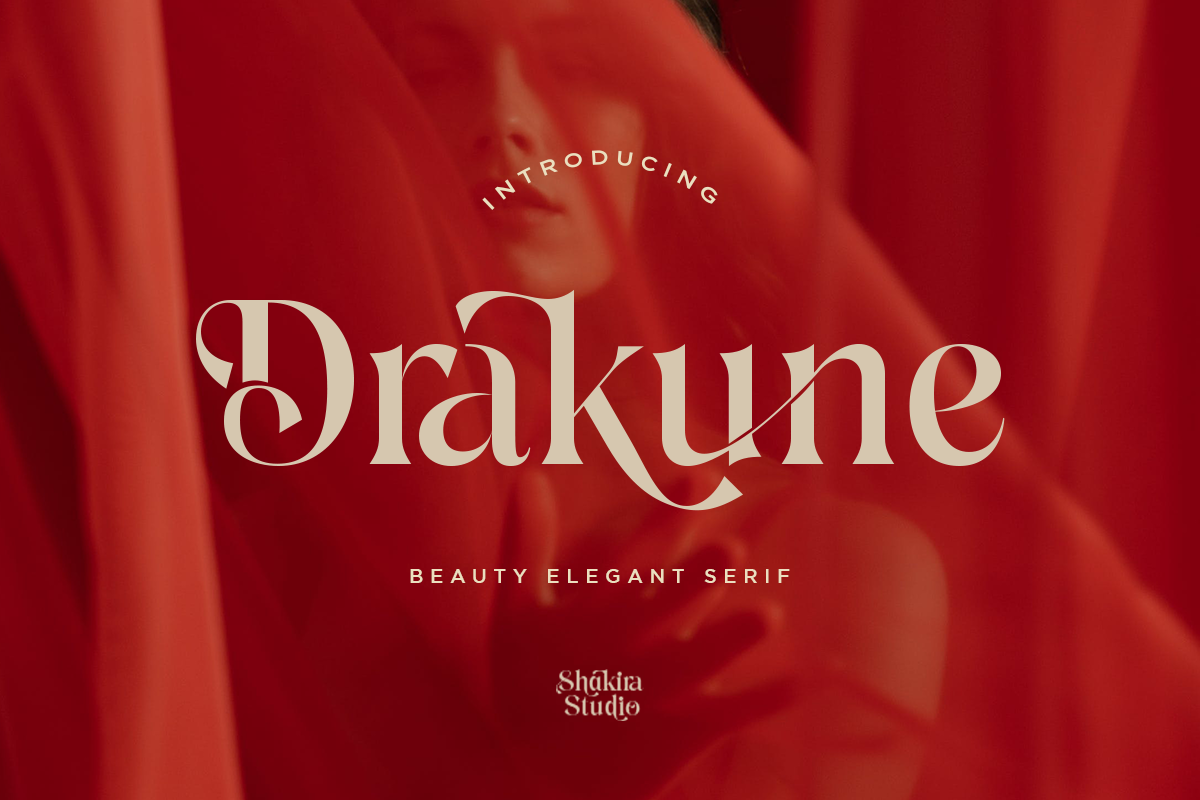
You must purchase this font for commercial use. However, you can download Drakune - Beauty Elegant Serif Font Free Download for testing purposes. Drakune is a sophisticated and elegant serif font designed to bring beauty and refinement to any design. Perfect for high-end branding, editorial layouts, fashion design, luxury product packaging, and elegant invitations, this font embodies timeless style and class.
With its delicate serifs, sleek curves, and beautifully crafted letterforms, Drakune adds a sense of luxury and professionalism to your projects. Whether you’re working on a premium brand identity, a chic magazine spread, or an upscale event invitation, this font will help you achieve a polished, refined look.